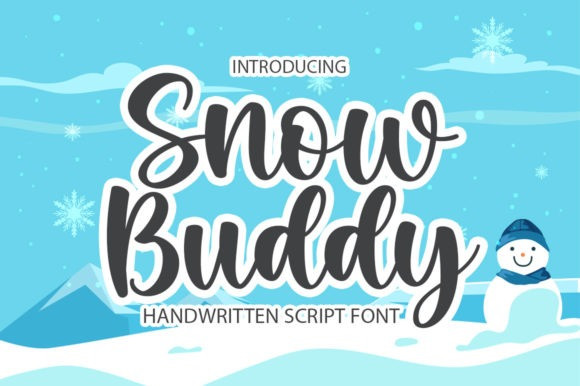
Snow Buddy Font
Snow Buddy Font is a delicate, elegant, and flowing handwritten font. It has beautiful and well-balanced characters and as a result, it matches a wide pool of designs. Add it to your most creative ideas, and notice how it makes them come alive!